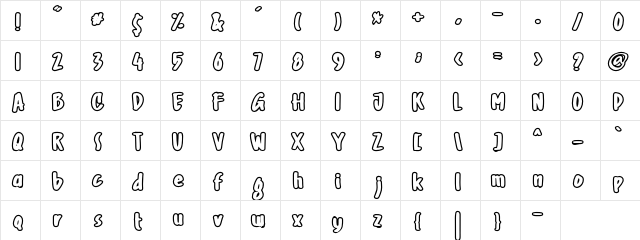
Ghoust Outline Regular
Design Context for Ghoust Outline Typeface
Ghoust Outline is built around its visual character rather than neutral utility — its distinctive forms are designed to make an impression at display sizes.
Font Pairing: Pair with a clean neutral sans-serif for body copy to let Ghoust Outline's character lead without overwhelming the composition.
Pro Tip: Use Ghoust Outline exclusively at display sizes — it was designed to be seen, not read at length. Let a neutral companion handle body copy.